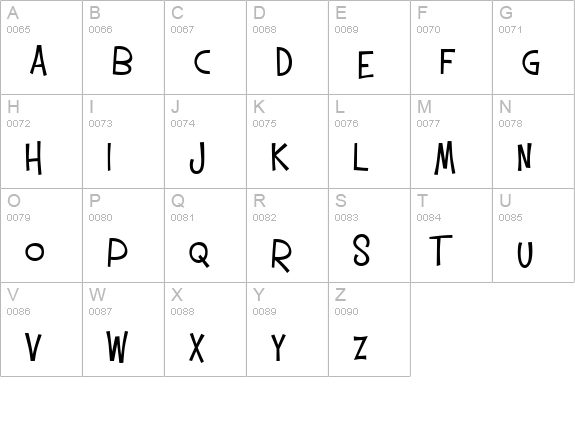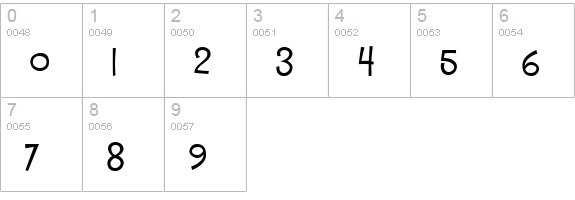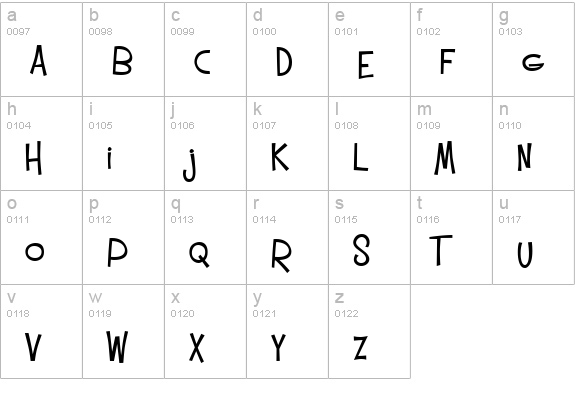
Mister Sirloin BTN Medium Font Details
Mister Sirloin BTN Medium is a balanced, medium-weight variant in the Mister typeface family \xE2\x80\x94 well suited to sub-headlines, navigation, and balanced editorial work.
Mister Sirloin BTN Medium is a versatile and stylish font that exudes sophistication and elegance. With its clean lines and balanced proportions, this font is perfect for a wide range of design projects, from branding to editorial design. The medium weight of this font strikes the perfect balance between being bold and refined, making it ideal for both display and body text. What sets Mister Sirloin BTN Medium apart is that it is freely available to download at FontsMarket.com. This means that you can easily access and use this exceptional font in your projects without any cost. Whether you're a professional designer or a hobbyist looking to elevate your designs, Mister Sirloin BTN Medium is a must-have addition to your font collection. Download it today and add a touch of sophistication to your next project.